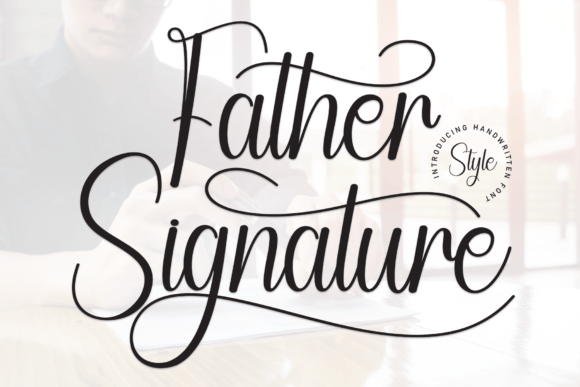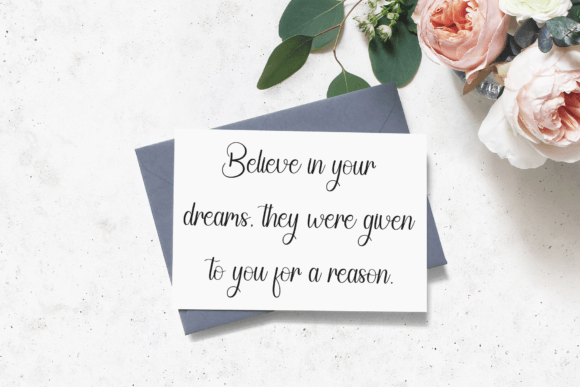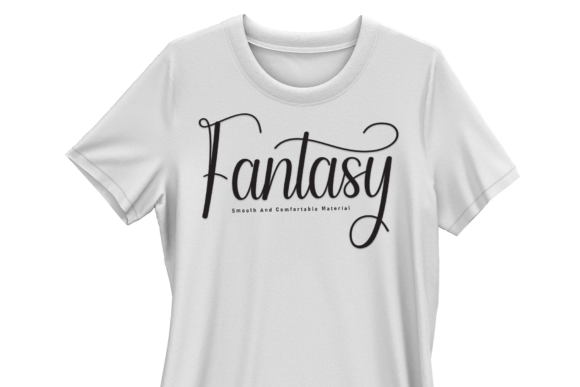
Father Signature Font: Elegant Script for Wedding Design
About the Father Signature Font
Step up your design game with Father Signature Font, a font that exudes confidence and style. Father Signature is a charming handwritten font that exudes warmth and authenticity. With its carefully crafted strokes, this font captures the essence of a father’s signature – a blend of strength and tenderness. Whether used for personal notes, invitations, or creative projects, Father Signature adds a touch of familiar elegance, making every word feel like a heartfelt message from dad.
Father Signature’s charming, slightly informal style works best for headlines, short text blocks, invitations, branding projects needing a personal touch, and packaging designs where a handcrafted feel is desired. It is less suitable for body text or UI elements due to its low x-height and inconsistent stroke weight, making extended reading difficult.
This font’s personality is best described as friendly and approachable, yet elegant and refined. To complement this, consider pairing it with a clean sans-serif like Montserrat for a modern contrast, or a classic serif like Garamond for a more traditional feel. A simple geometric sans-serif could also provide a nice counterpoint to its organic forms.
For a more playful approach, a script font with a similar level of formality could be used, but ensure readability remains a priority. Avoid pairing it with overly bold or aggressive fonts; maintaining a sense of balance and visual harmony is key.
Father Signature Font Usage Examples
Father Signature Font Example